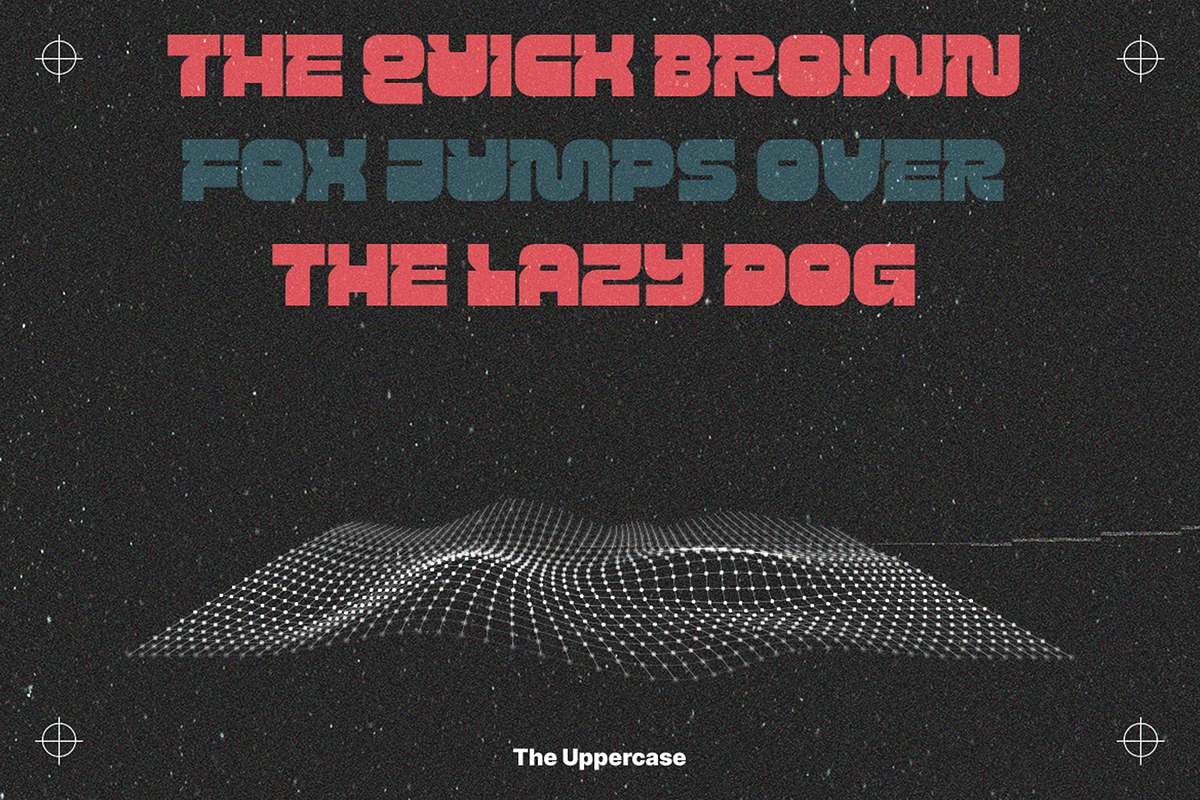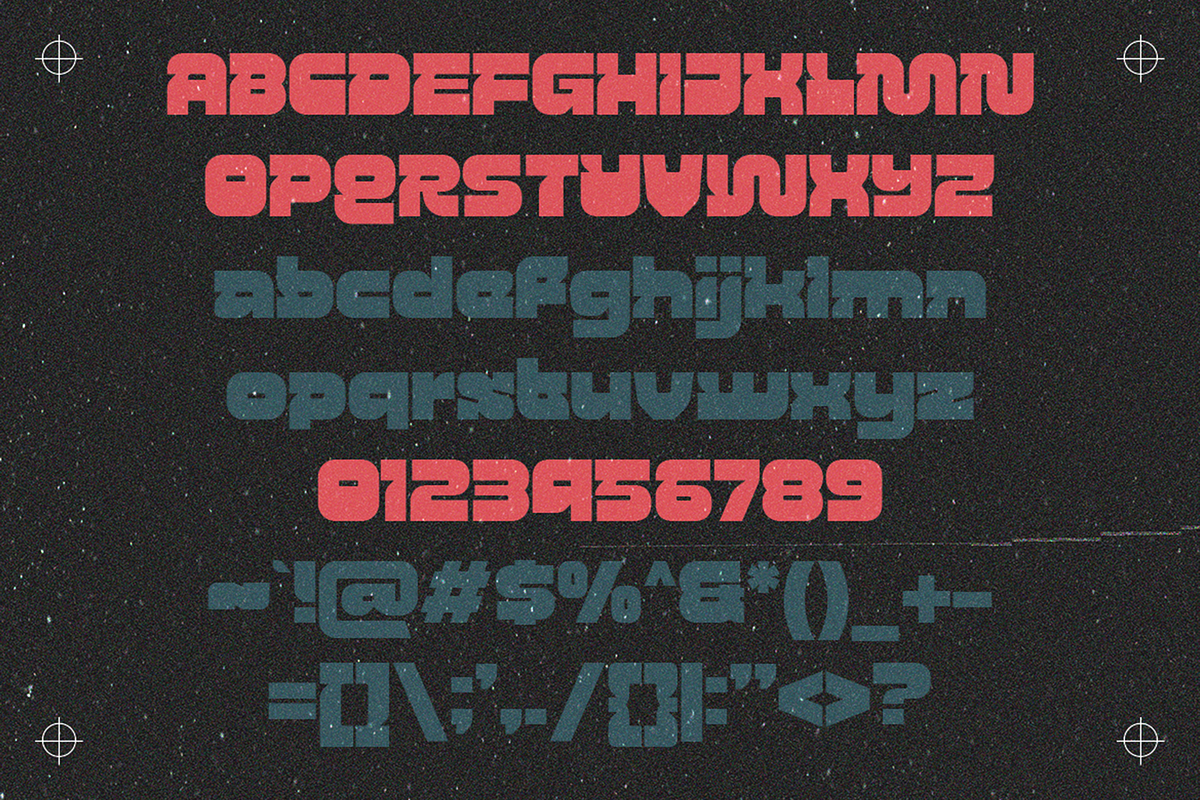
Neglia - Bold Retro Futurism Fonts
Neglia: Bold. Futuristic. Limitless.
Unleash the power of Neglia, a bold and futuristic font that fuses retro-futurism with the hard edges of brutalism. Ideal for gaming, cyberpunk, sci-fi, and experimental designs, Neglia sets the tone for projects that demand a forward-thinking aesthetic. Its versatile style makes it perfect for posters, logos, branding, and any design needing that cutting-edge, futuristic vibe.
Elevate your creative work with Neglia—where bold meets the future.